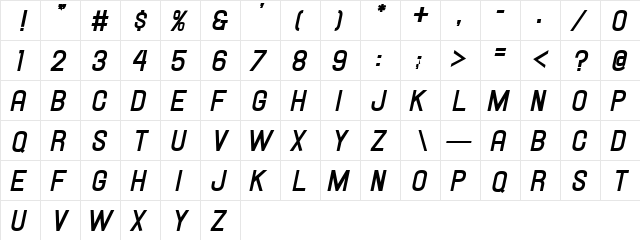
Hallandale Bold Italic JL Regular
Design Context for Hallandale Bold Italic JL Typeface
Hallandale Bold Italic JL is a composed and adaptable typeface that performs quietly and consistently across a wide range of design contexts. Its italic angle brings a sense of urgency and motion to the letterforms. Its bold stroke weight gives it real presence on the page.
Pro Tip: Use Hallandale Bold Italic JL for emphasis, pull quotes, and subheadings where its slanted energy can add rhythm to the layout.